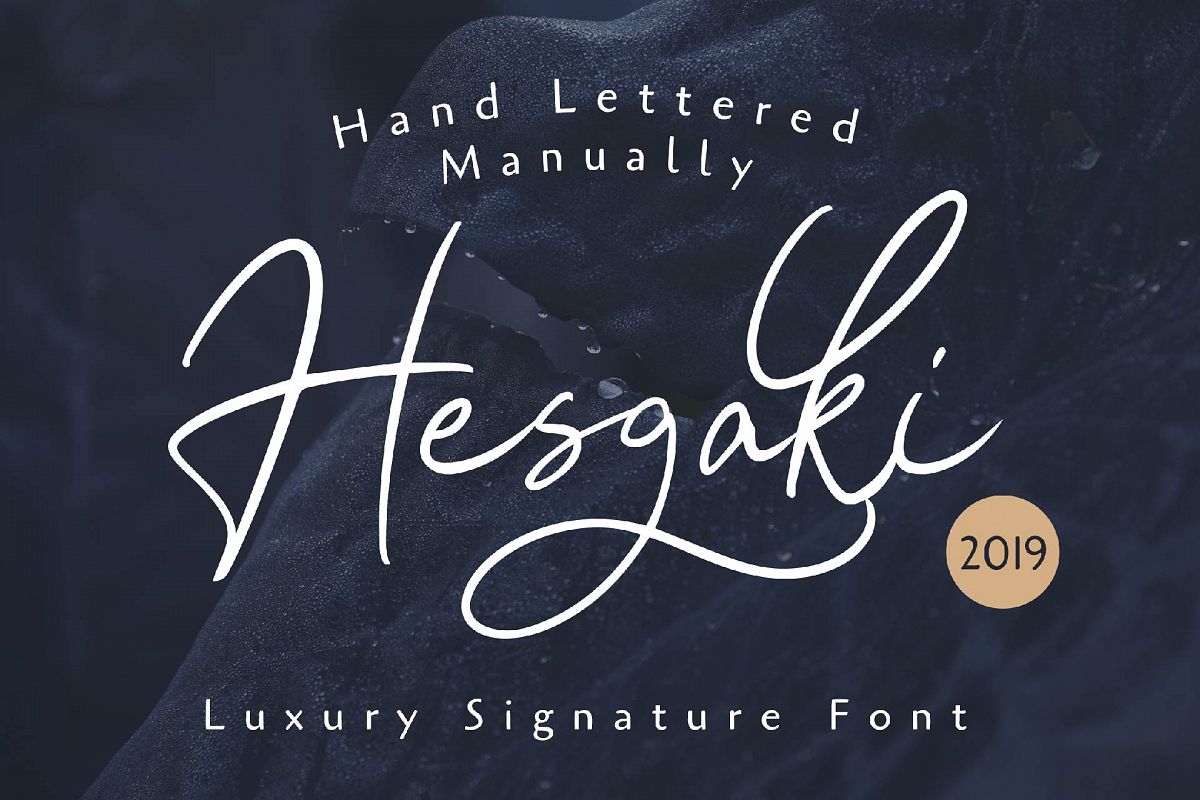
Hesgaki - Luxury Signature Font
Hesgaki
Hesgaki - Luxury Signature Font
So beautiful on invitation like greeting cards, branding materials, business cards, quotes, posters, and more!